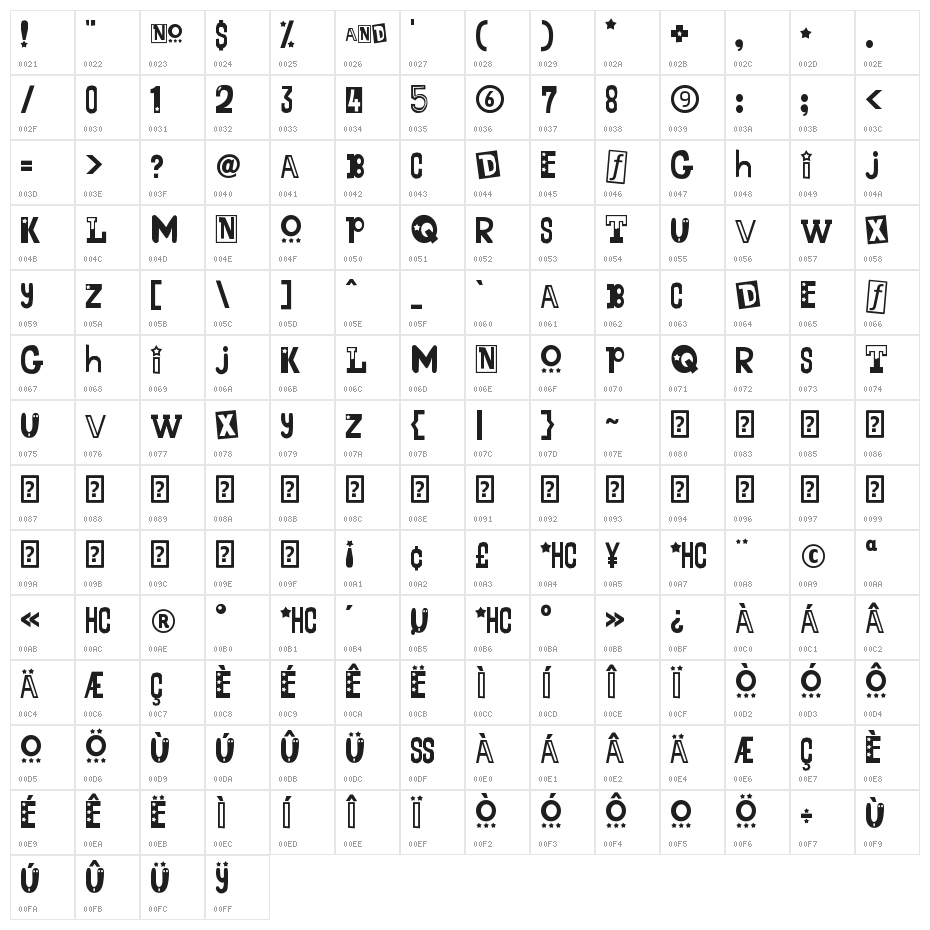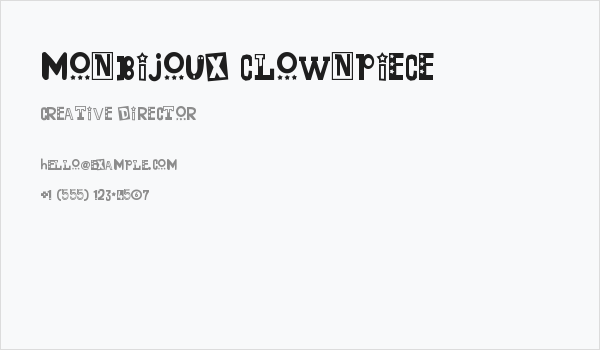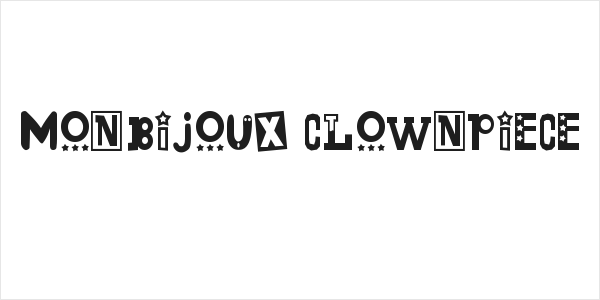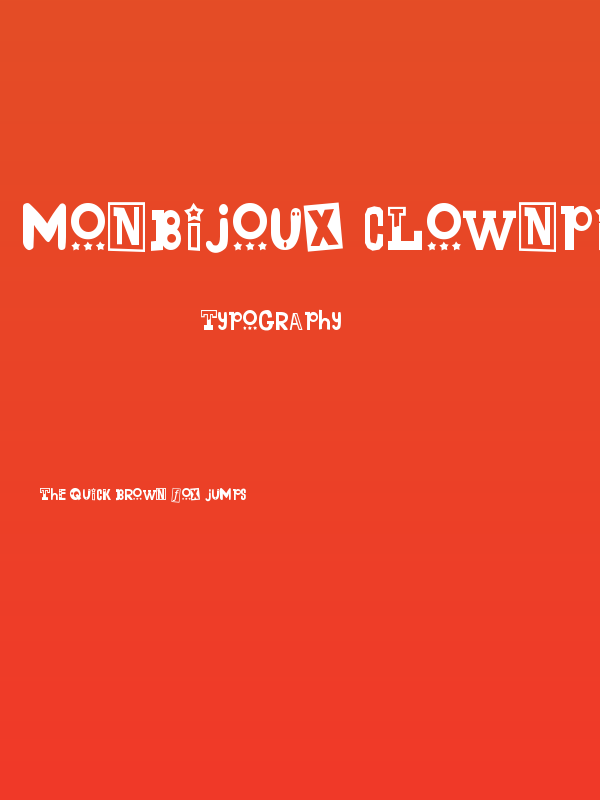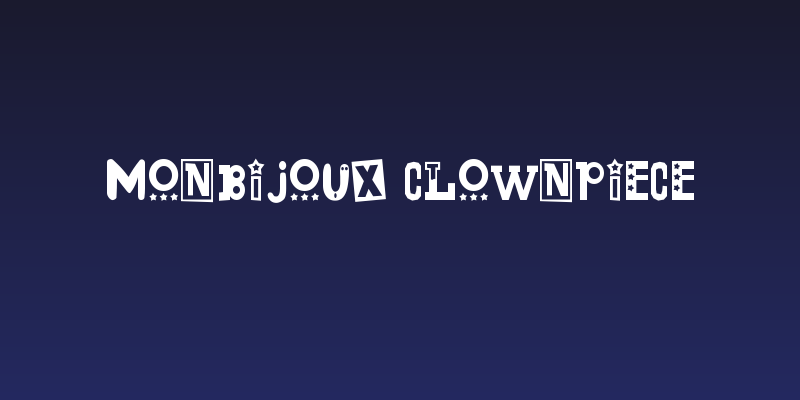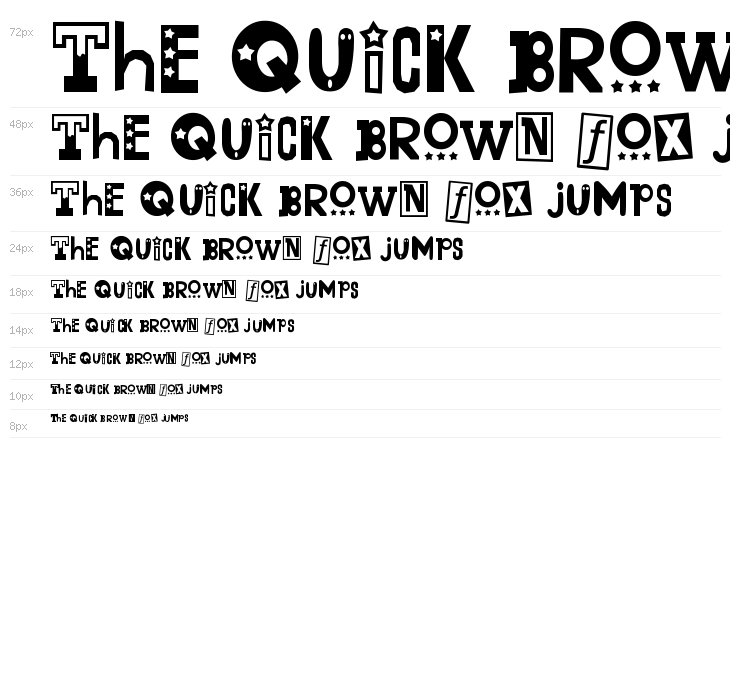
Monbijoux Clownpiece Font
Monbijoux Clownpiece Description
This playful and whimsical font features a variety of bold, decorative characters with unique embellishments. Each letter is distinct, incorporating elements like stars, dots, and outlines, giving it a lively and dynamic appearance. The uppercase letters are particularly striking, with some characters enclosed in boxes or featuring playful cutouts. The lowercase letters maintain the same playful style, with a mix of solid and outlined forms. Numbers and special characters continue the theme, with stars and other decorative elements enhancing their visual appeal. This font is perfect for projects that require a fun and eye-catching design.
Proposed ProjectsIdeal for children's books, party invitations, playful branding, and creative posters.